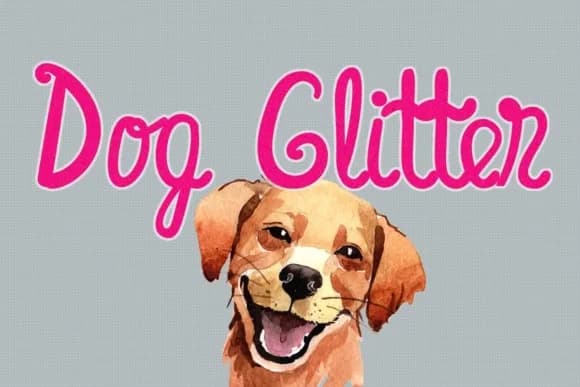
Dog Glitter Font by Lickable Pixels is a whimsical handwritten script that brings playful energy to any design project. With its bouncy letterforms and expressive character, this typeface captures the carefree joy of puppies at play, making it ideal for pet-related branding and designs that need genuine personality and warmth. The font's distinctive style stands out in a crowded marketplace, giving your work an instant visual edge.
This font works beautifully across pet product packaging, dog training business logos, and canine-themed greeting cards. Whether you're creating personalized pet birthday invitations or social media graphics for a dog grooming salon, Dog Glitter adds instant charm and memorable recognition to your work. The script's energetic style also suits children's book covers and pet adoption promotional posters, where you need typography that feels approachable and fun without being overly cartoony or saccharine.
Dog Glitter Font is a script font that shines as a display or heading face. Pair it with a clean sans-serif or serif font for body text β the contrast creates a clear hierarchy while the two styles stay balanced and easy to read.